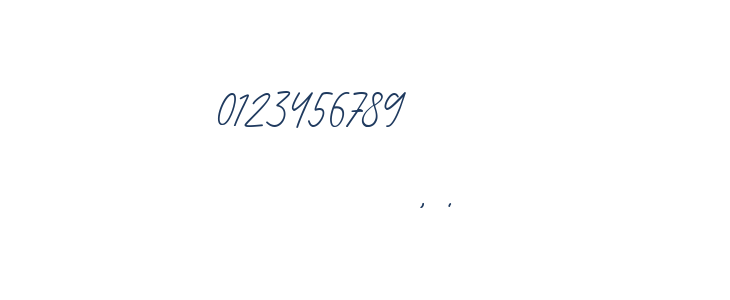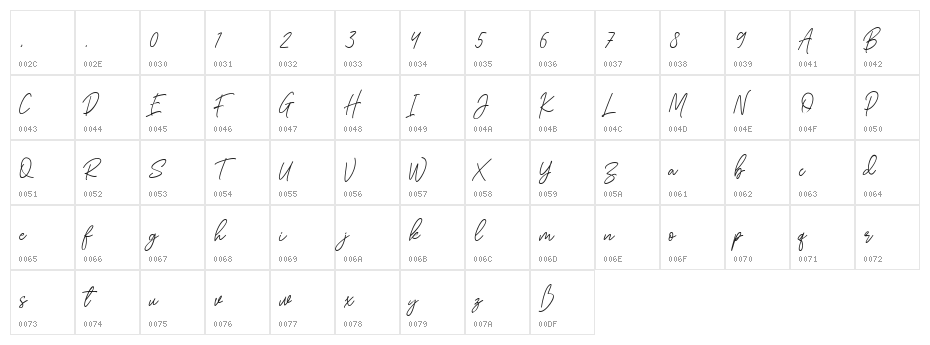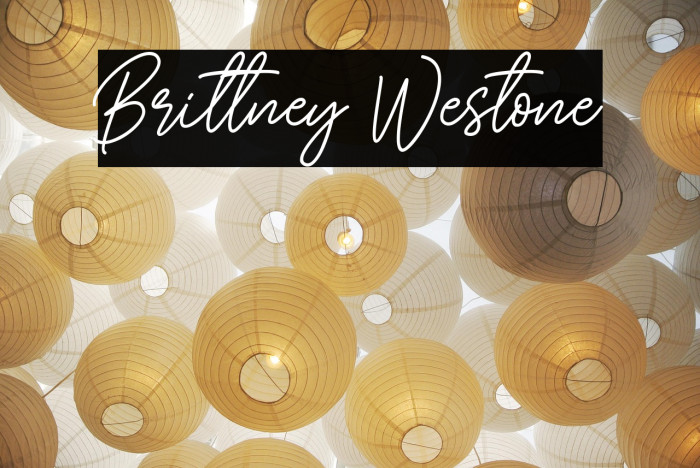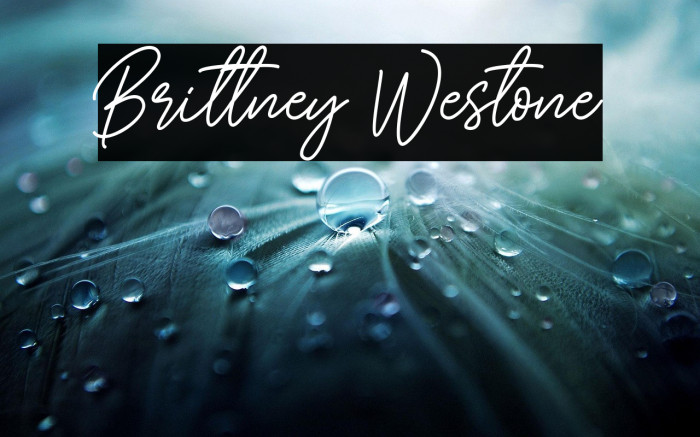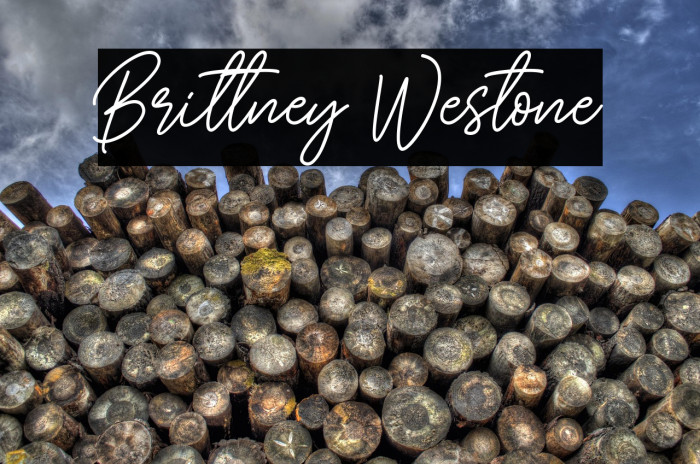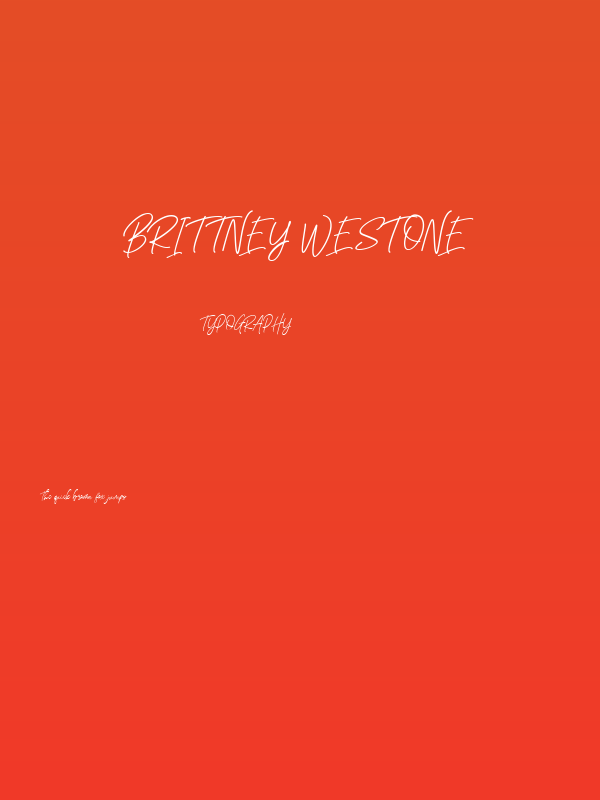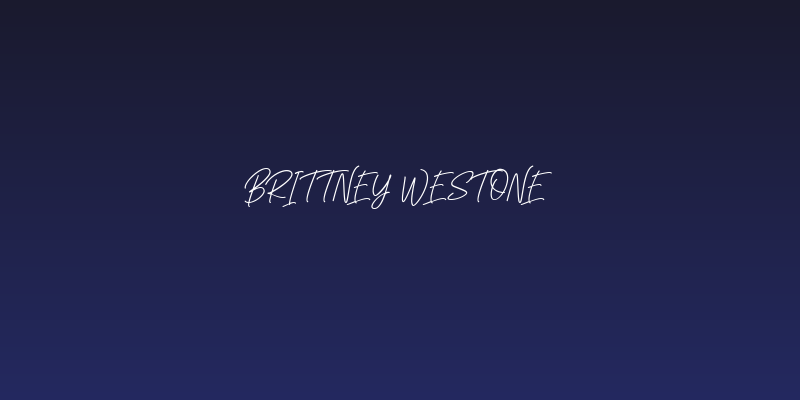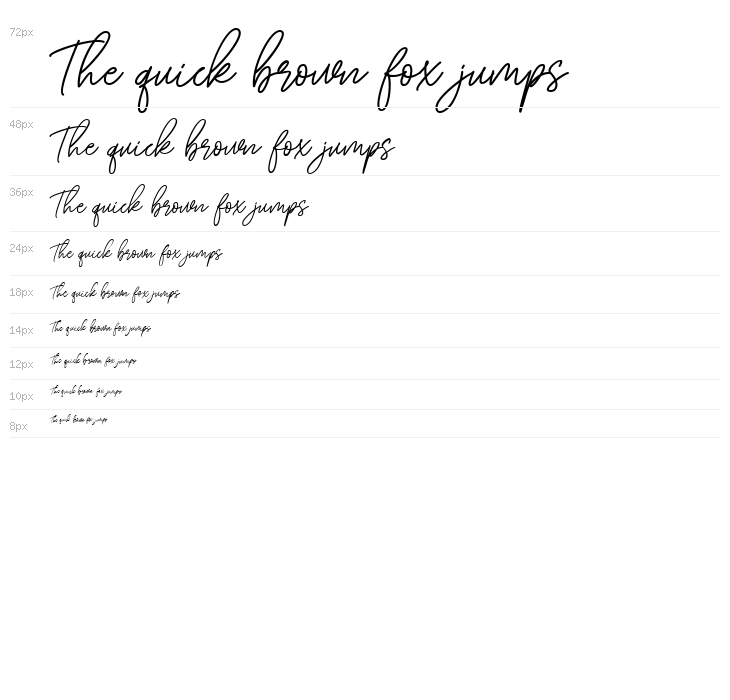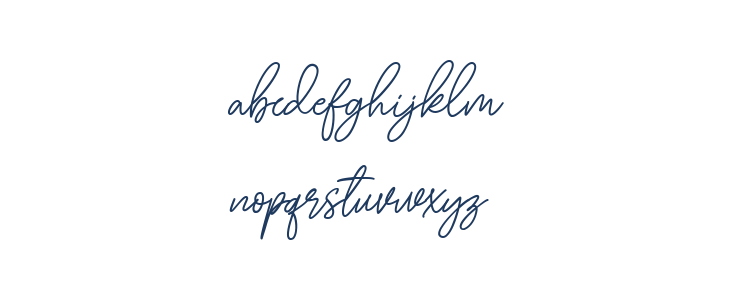
Brittney Westone Font
Brittney Westone Description
This font exudes a casual yet elegant handwritten style, characterized by its fluid and connected letterforms. The strokes are smooth and slightly varied in thickness, giving it a natural and personal touch. The uppercase letters are tall and slightly slanted, while the lowercase letters maintain a consistent flow, enhancing readability. The numbers are well-integrated with the overall style, maintaining the same handwritten aesthetic. This font is versatile, suitable for projects that require a personal or artistic flair, such as invitations, greeting cards, or branding materials. Its unique style can add a touch of sophistication and warmth to any design.
| Overall Style | Elegant, Casual |
| Use Case | Invitations, Greeting cards, Branding |
| Proposed Projects | Ideal for invitations, greeting cards, branding, and artistic projects. |